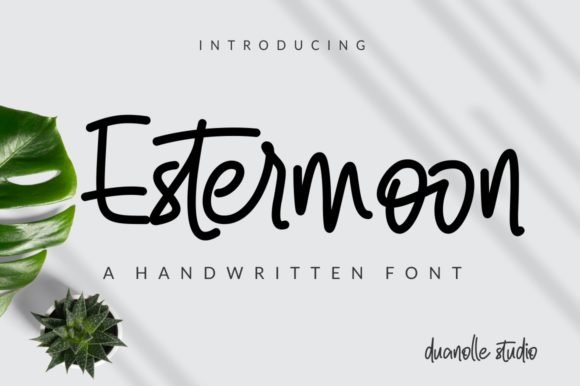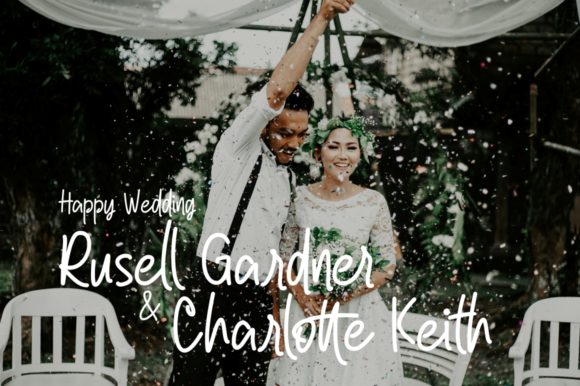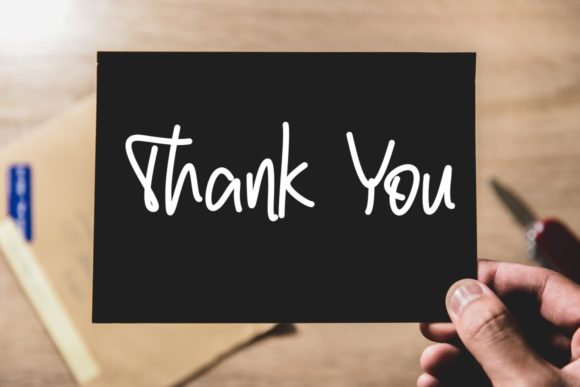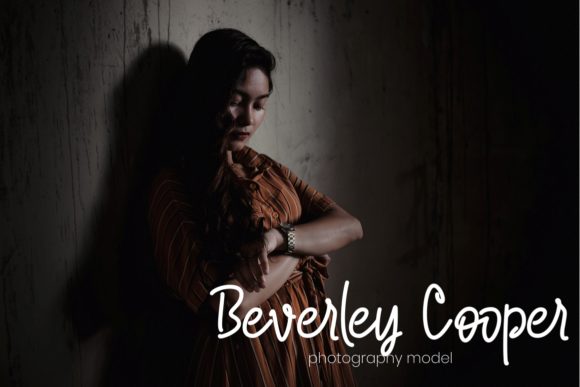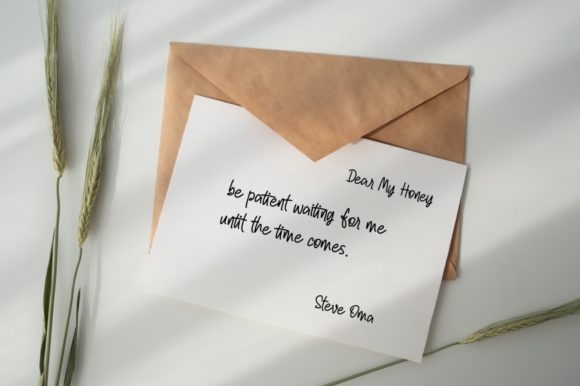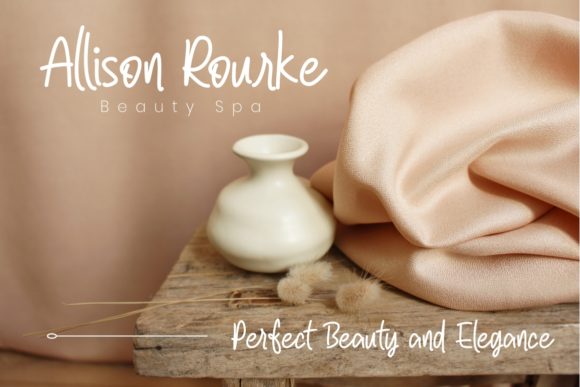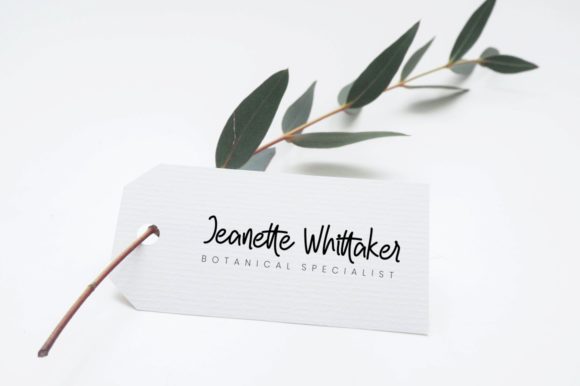
Find Your Creative Flow with Estermoon Font
There’s nothing quite like the rush of excitement you feel when a creative idea starts to take shape. The spark of inspiration, the thrill of experimentation, and the satisfaction of bringing your vision to life – it’s a feeling that never gets old. And for designers, finding the right tools to help them express their creativity is crucial. That’s where Estermoon Font comes in – a beautiful, handwritten font designed to help you elevate your work to new heights.
With Estermoon Font, you’ll have the perfect companion to bring your creative ideas to life. Whether you’re working on a branding project, designing a website, or crafting a marketing campaign, this font is sure to become a true favorite. Its relaxed and timeless feel makes it versatile and easy to use, allowing you to focus on what matters most – bringing your vision to life.
Estermoon Font Key Features
- Unique Characteristics: Elegant, cursive script with a touch of whimsy, perfect for invitations, wedding stationery, and other special occasions
- Font Style: Script, cursive
Estermoon Font Review
I recently had the chance to work with the Estermoon Font, and I must say it’s a unique addition to any design project. ✨ The font’s soft, whimsical feel is perfect for creating a dreamy or ethereal atmosphere, and it works particularly well for projects that require a touch of elegance.
- ✨ Unique letterforms that add a personal touch to any design
- ✨ Perfect for creating a dreamy or ethereal atmosphere
- ✨ Elegant and sophisticated feel
However, there are a few limitations to consider. ⚠️ The font may be too soft or delicate for projects that require a bold or edgy feel. Additionally, some of the letterforms may be difficult to read at smaller font sizes, which could impact readability.
- ⚠️ May be too soft or delicate for bold or edgy projects
- ⚠️ Some letterforms may be difficult to read at smaller font sizes
Overall, I think the Estermoon Font is a great choice for designers who want to add a touch of elegance and sophistication to their projects. While it may not be suitable for every project, it’s definitely worth considering for the right type of design.
Tips: Use Estermoon font for titles and headings to add a touch of elegance to your designs.
Tips: Use Estermoon font for text overlays and quotes to add a touch of sophistication to your designs.
Tips: Use Estermoon font for titles, headings, and body text to create a consistent and elegant look.
Estermoon font is ideal for:
- Editorial and publishing designs.
Tips: Experiment with different font sizes, colors, and styles to create unique and eye-catching designs.
Alternatives to Estermoon Font
Playfair Display is a luxurious and elegant serif font, perfect for formal invitations, wedding designs, and high-end branding. It features intricate details and ornate flourishes, making it ideal for special occasions and premium products.
Comparison to Estermoon Font: While Estermoon Font has a softer, more feminine touch, Playfair Display is more dramatic and opulent. Playfair Display is suitable for projects that require a touch of sophistication and glamour.
Great Vibes is a modern script font that exudes a sense of warmth and friendliness. It’s perfect for designs that require a personal touch, such as branding for small businesses, event invitations, and social media graphics.
Comparison to Estermoon Font: Great Vibes has a more casual and approachable feel compared to Estermoon Font, which is more elegant and refined. Great Vibes is suitable for projects that require a relaxed and friendly tone.
Carolyna Pro is a modern sans-serif font that features a clean and sophisticated design. It’s perfect for designs that require a professional and modern look, such as corporate branding, product designs, and editorial content.
Comparison to Estermoon Font: Carolyna Pro is more minimalist and sleek compared to Estermoon Font, which has a more ornate and feminine touch. Carolyna Pro is suitable for projects that require a clean and modern aesthetic.
Alex Brush is a elegant and refined script font that features a touch of sophistication and elegance. It’s perfect for designs that require a personal and intimate touch, such as wedding invitations, baby announcements, and luxury branding.
What is the recommended font size for Estermoon Font?
The recommended font size for Estermoon Font is 12-14 points for body text and 18-24 points for headings. This will ensure optimal legibility and readability. However, feel free to experiment with different font sizes to find the perfect fit for your design project.